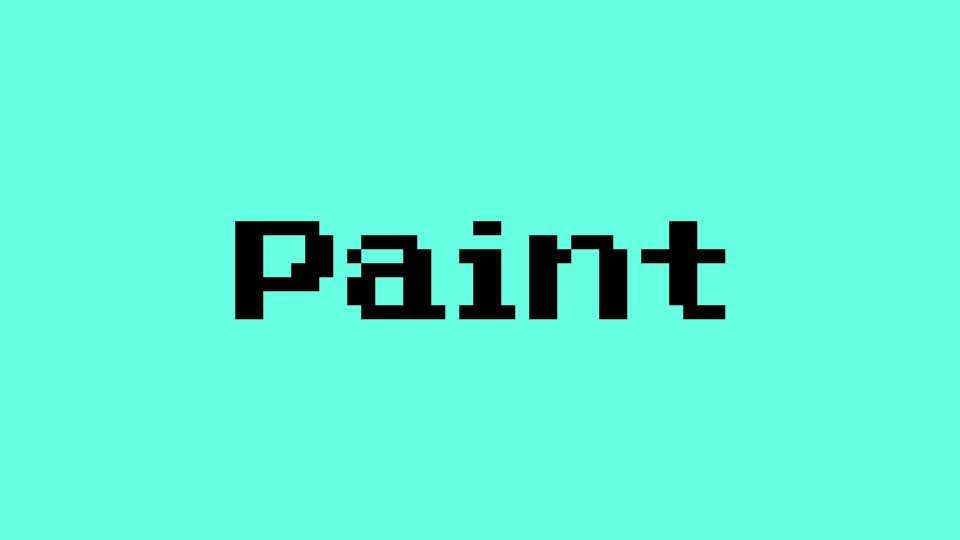
Download Paint font, a simple pixel typeface that combines clarity and retro charm with a clean, minimalist design. It features straightforward letterforms constructed from individual pixels
Designer: Too Much Type